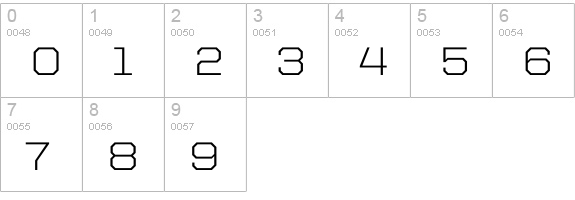
United Sans SemiExt Light Font Details
United Sans SemiExt Light is a refined, elegant variant in the United typeface family \xE2\x80\x94 well suited to elegant body text, refined sub-headings, and luxury branding.
United Sans SemiExt Light is a breathtakingly elegant font that exudes sophistication and grace. Its sleek and slender letterforms are carefully crafted to create a sense of modernity and refinement. With its delicate curves and clean lines, this typeface is perfect for adding a touch of sophistication to any design project. The United Sans SemiExt Light font offers a unique and versatile style that is both timeless and contemporary. Its light weight adds a touch of delicacy, making it ideal for projects that require a subtle and refined aesthetic. Whether it's for branding, advertising, or editorial purposes, this font will effortlessly elevate your designs to new heights. One of the most remarkable features of United Sans SemiExt Light is that it is freely available to download at FontsMarket.com. This means that you can easily access this stunning font and incorporate it into your projects without any cost. The fact that it is free adds an extra layer of value, making it even more enticing for designers and creatives. United Sans SemiExt Light is a truly versatile font that can be used across a wide range of applications. Its clean and legible letterforms make it perfect for both print and digital designs, ensuring that your message is effectively communicated to your audience. Its timeless elegance and modern appeal make it suitable for a variety of projects, from logos and headlines to body text and captions. Overall, United Sans SemiExt Light is a must-have font for any designer looking to add a touch of sophistication and refinement to their work. Its free availability on FontsMarket.com makes it even more accessible and appealing. So go ahead, download this exquisite font and unlock a world of creative possibilities.